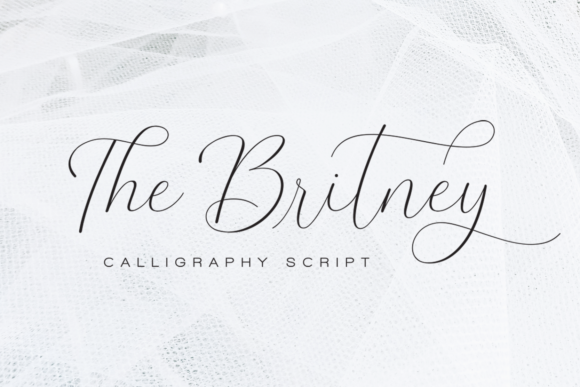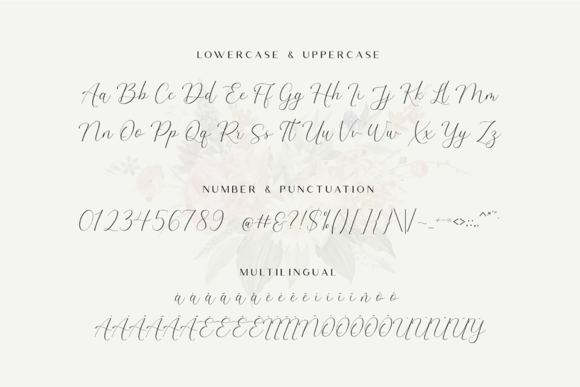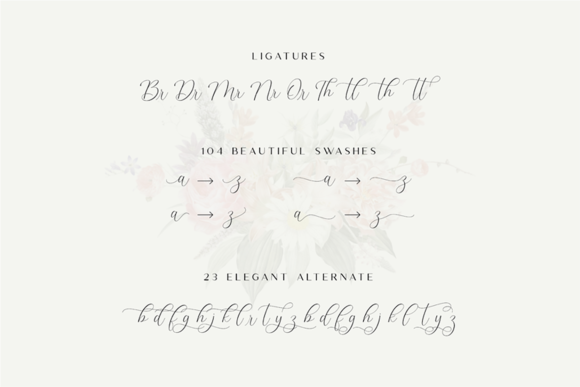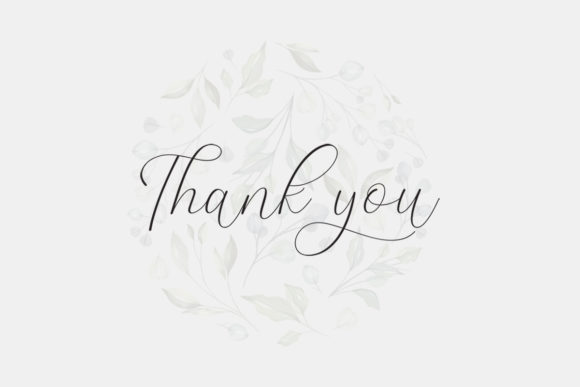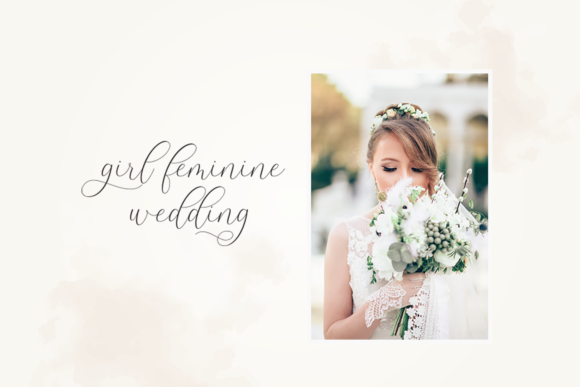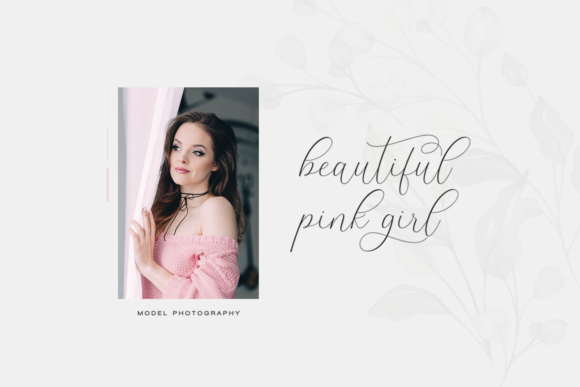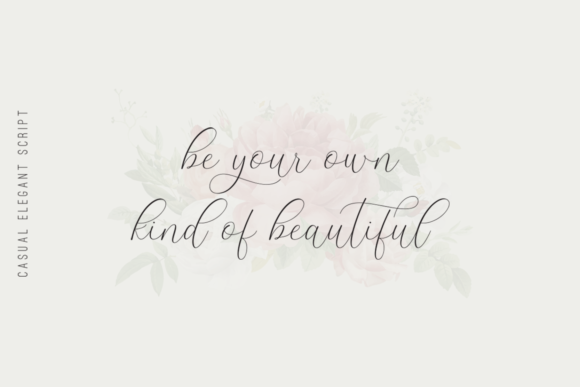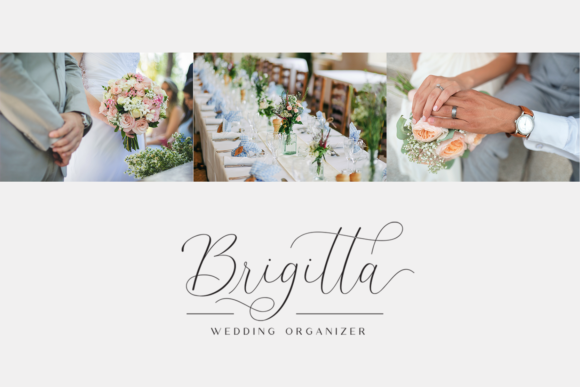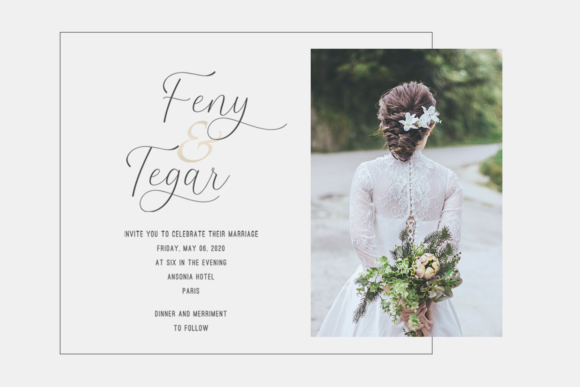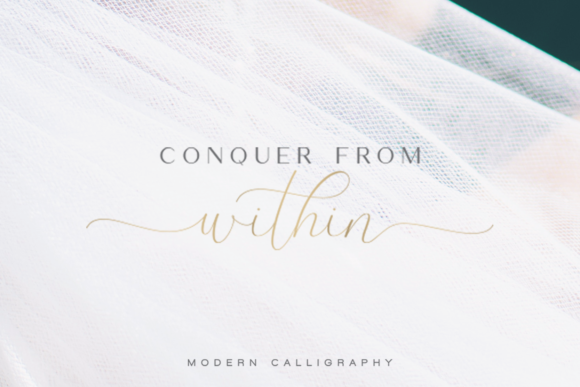
The Britney Font
About The Britney Font
The Britney is a stunning and eye-catching font with a sweet and innocent touch. Fall in love with its delicate and authentic charm.